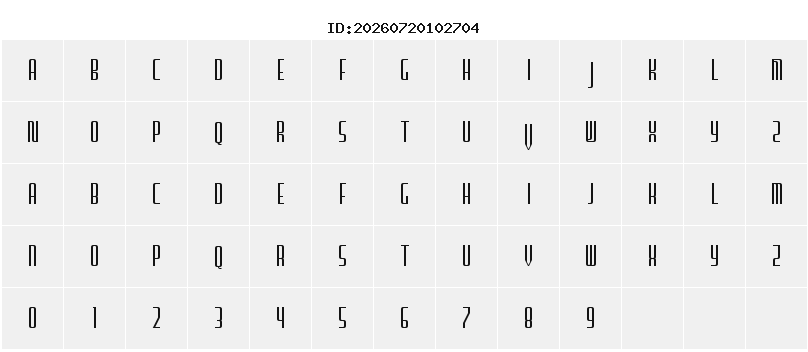
• Font Name: Furgatorio Sans
• Designer: Aaron Amar
• Description: “Furgatorio Sans” was built with FontStruct “Furgatorio Sans” is based on “Furgatorio” by “Aaron Amar” (http://fontstruct.com/fontstructors/show/93832/aaronamar)
Furgatorio Sans.ttf is a modern, elegant sans-serif font designed for ultimate readability and visual harmony. Perfect for branding, headlines, web design, and print materials.